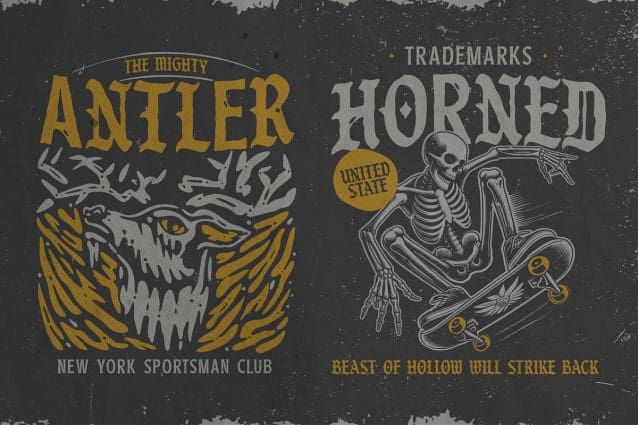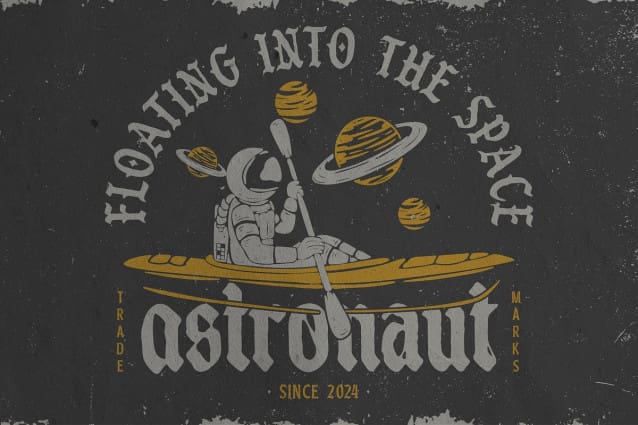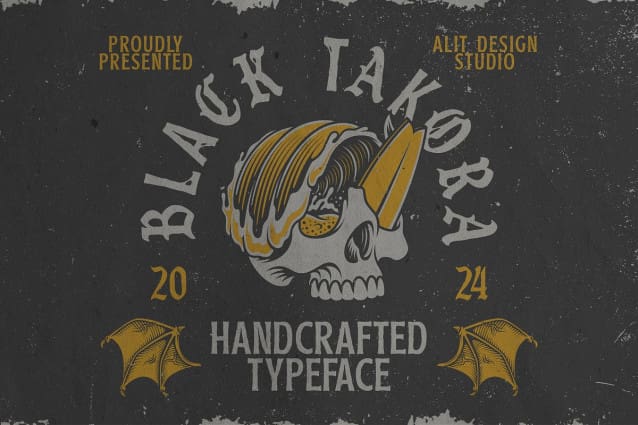
Black Takora Font
Black Takora Font: This rugged blackletter font exudes a bold and timeless aesthetic, perfect for projects that demand a touch of nostalgia and strength. With its rough, hand-crafted edges and meticulously designed characters, BlackTakora adds a distinct vintage charm to any creative work.